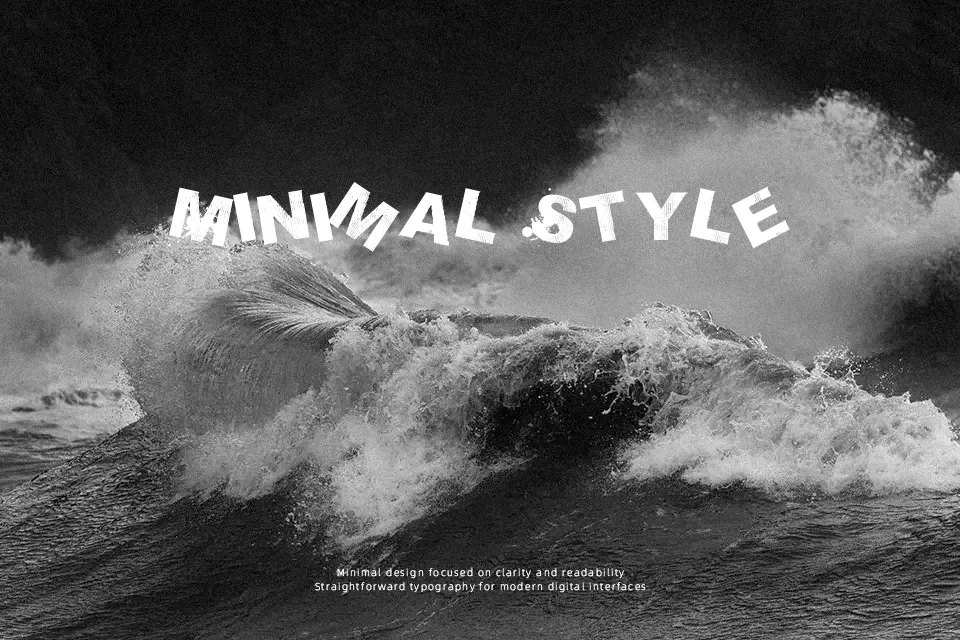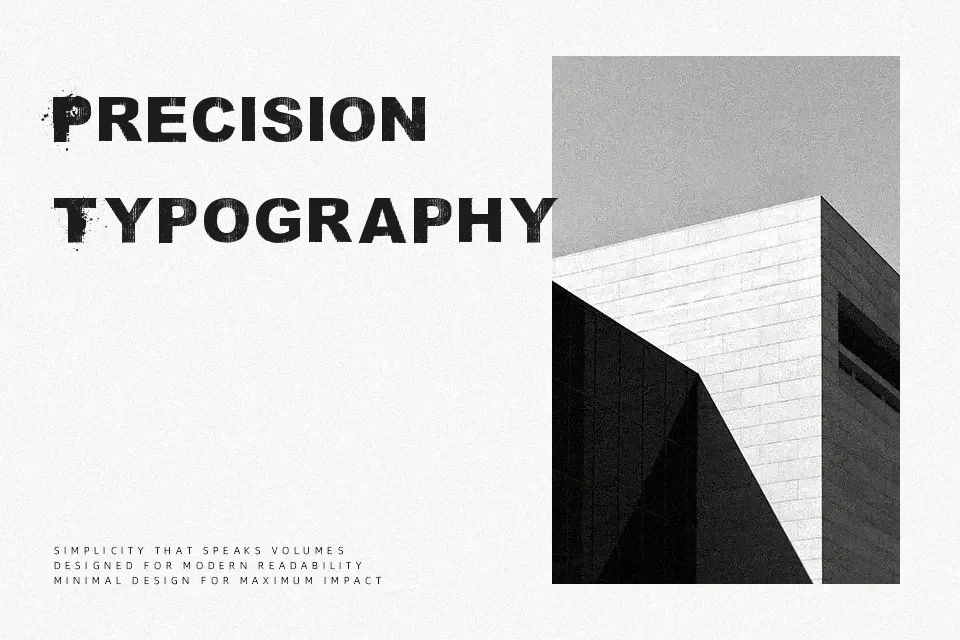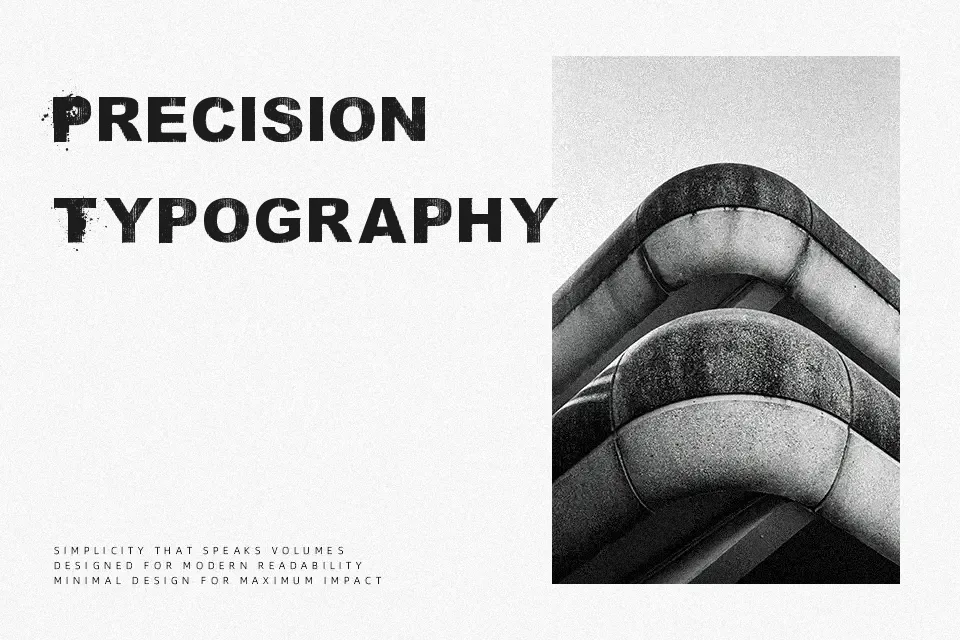
Sammies Sans Serif Font
Designed by Lars Manenschijn
Sammies Sans Serif Font presents a rugged, eroded visual structure defined by heavy uniform strokes and weathered edge details. The design maintains relatively tight character spacing and compact proportions, which reinforce its punchy presence in display settings. While the distressed contours add distinct character, the underlying letterforms retain consistent geometric skeletons that preserve legibility in brief lines of text. The spacing helps maintain clarity in larger headlines across print graphics and apparel designs. However, the lack of numerals and intense degradation make this typeface unsuitable for dense editorial paragraphs or small interface labels where fine contours dissolve into visual noise.
Best For: music festival posters, streetwear apparel, band merchandise, album covers
Not Ideal For: continuous reading, corporate documents, mobile app interfaces, data tables
Perfect for branding, headline, and music, with a bold and decorative style.